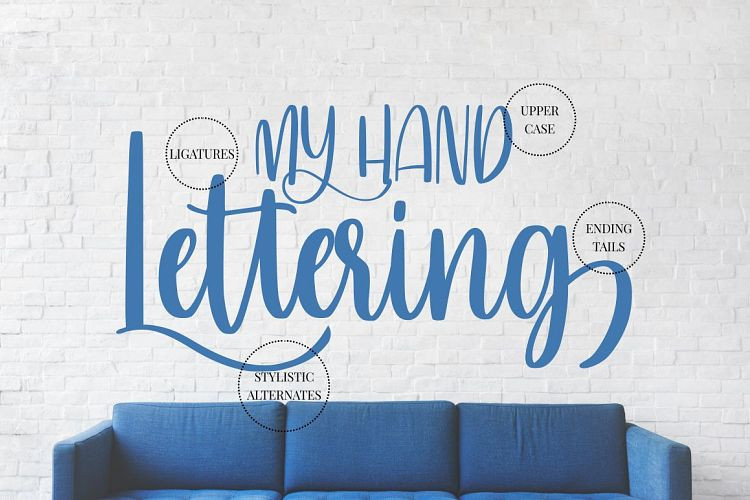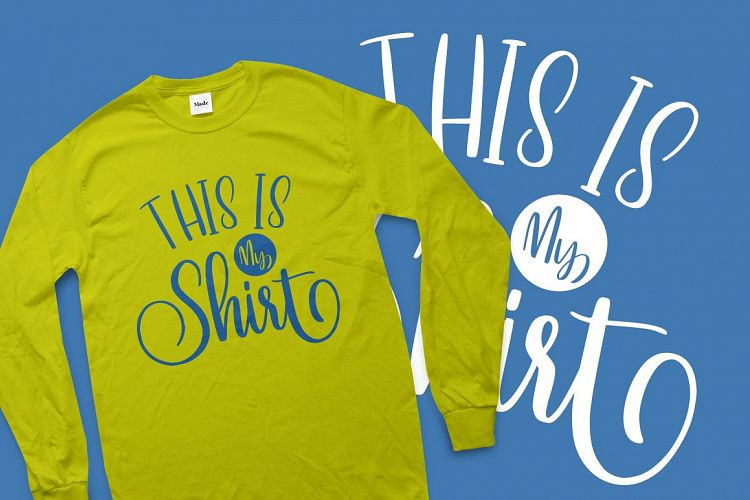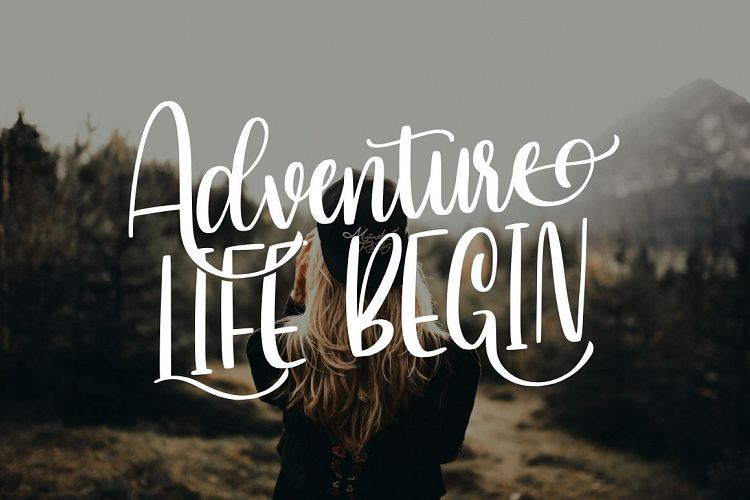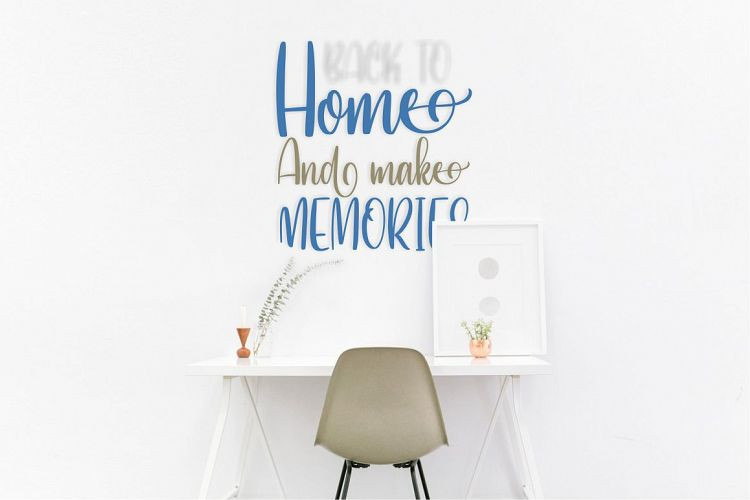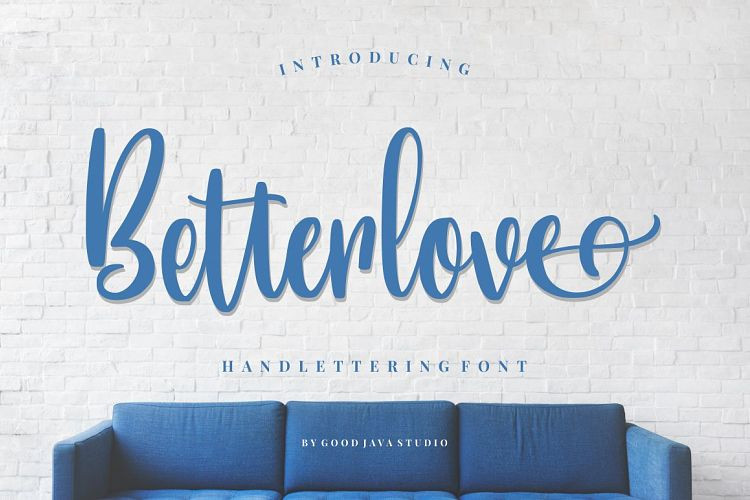
Betterlove Handlettering Font
Betterlove Handlettering – Demo Font
This is an amazing work of art. It is a beautiful script font with a classy, elegant, and modern look. It will add a handlettering touch to any design project! Introducing Betterlove Font. It’s designed and shared by Good Java Studio. Betterlove is beautiful script font make with many swashes in start and ending character. Make a beautiful swashes. This font includes full set of swash heart lowercase letters, numerals, and punctuation. Also it includes opentype Ligatures and Stylistic Set. This is so perfect for invitations, monograms, wedding, fashion, branding, label. or logotype.